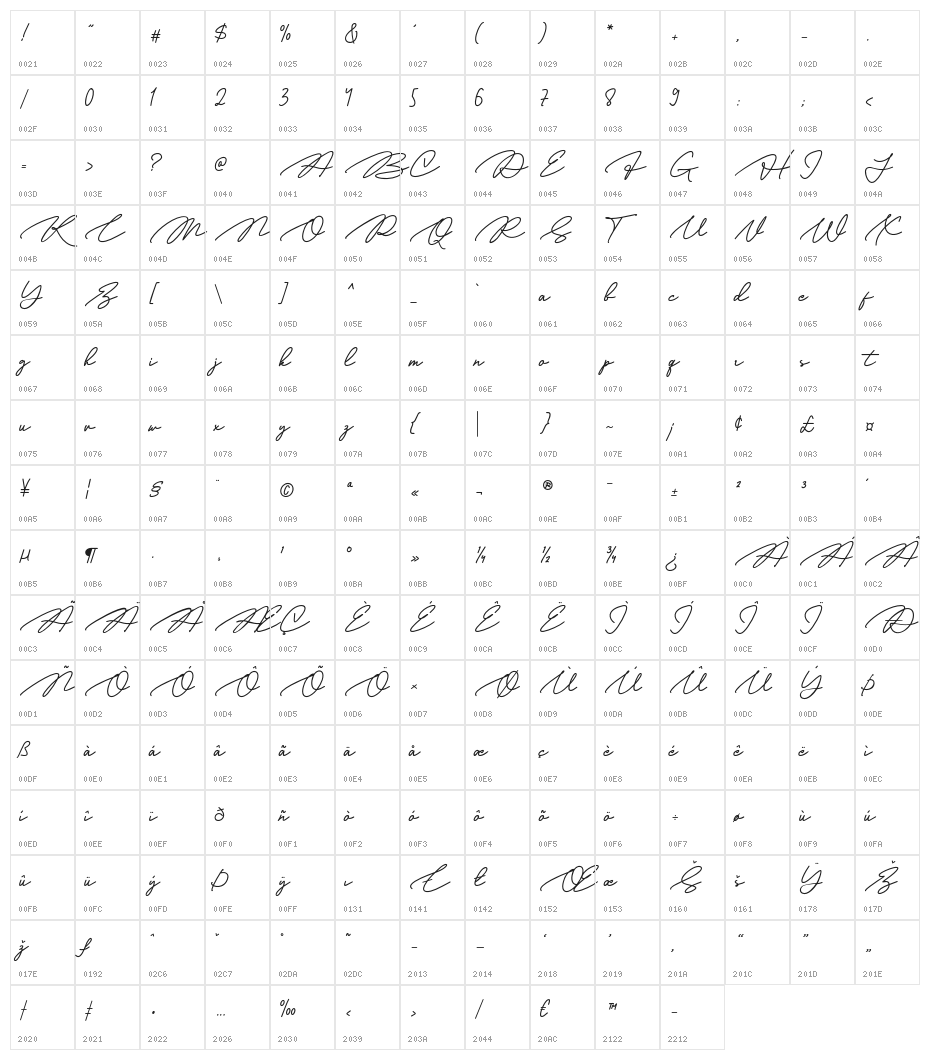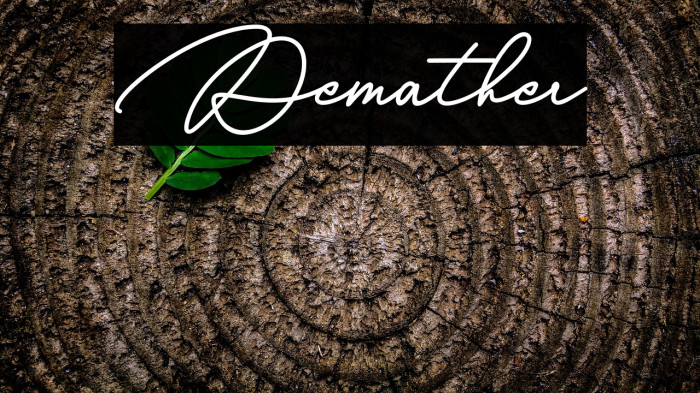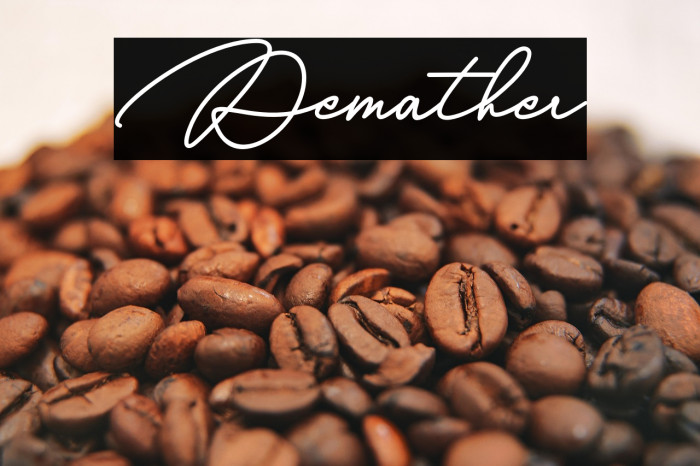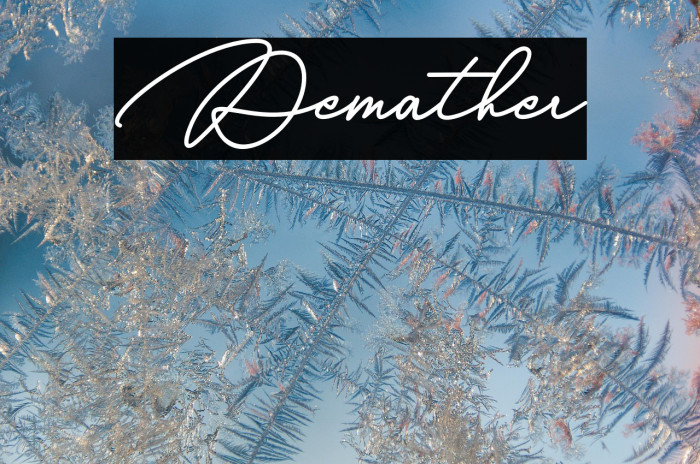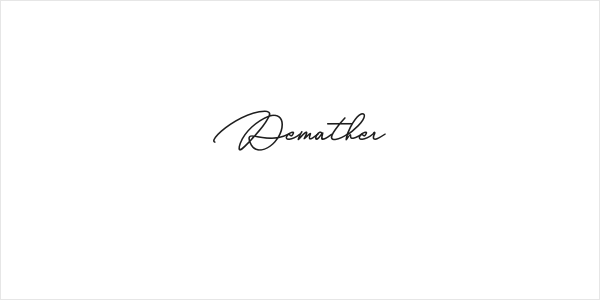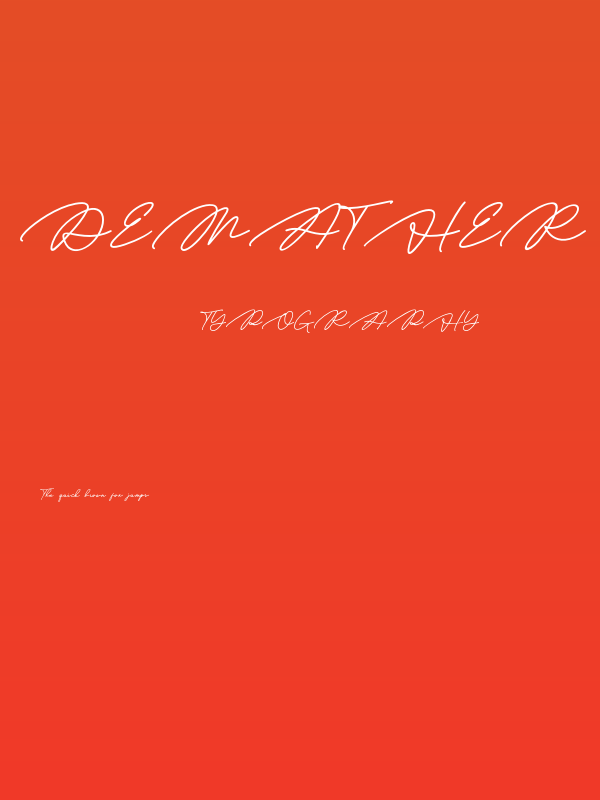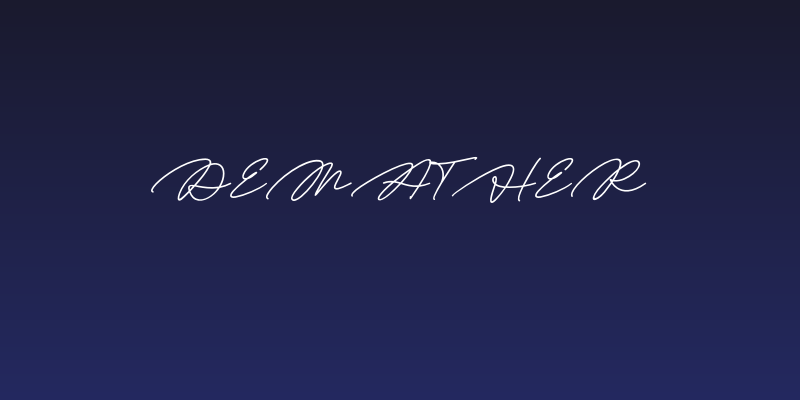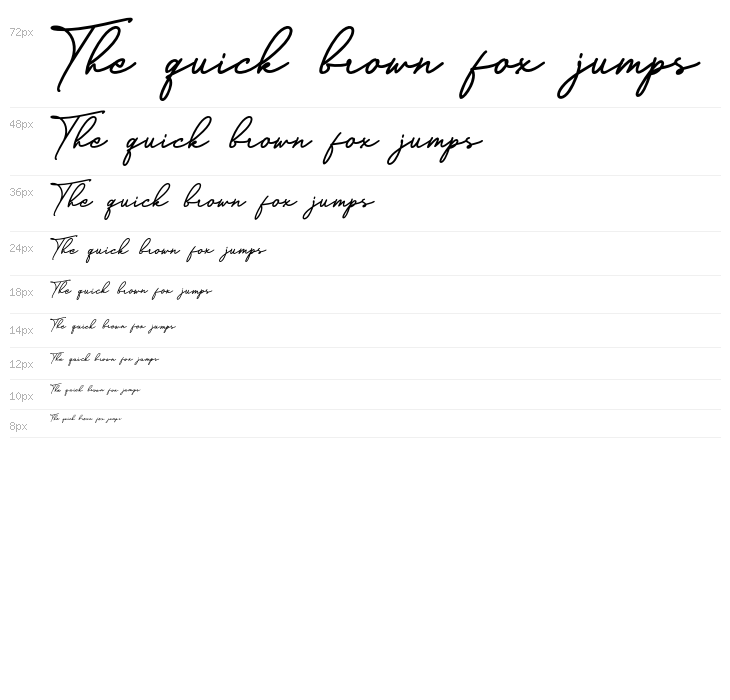
Demather Font
Demather Description
A flowing, cursive script font with elegant, connected letterforms and a handwritten appearance. The uppercase letters are thin and airy, while the lowercase set is bolder and more expressive, featuring smooth curves and natural slants. The numerals and punctuation maintain the same handwritten style, contributing to a cohesive, personal feel.
| Overall Style | Decorative, Handwritten, Elegant |
| Use Case | Logos, Headlines, Invitations, Social media posts |
| Proposed Projects | Wedding invitations, personal branding, greeting cards, quotes, social media graphics. |